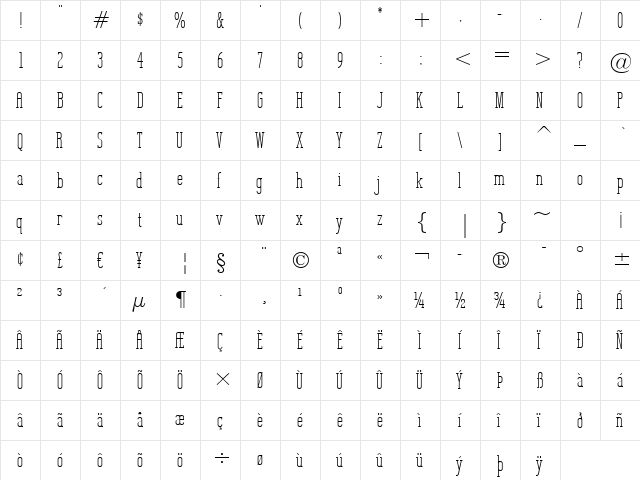
Unknown Caller BTN Regular
Design Context for Unknown Caller BTN Typeface
Unknown Caller BTN is a composed and adaptable typeface that performs quietly and consistently across a wide range of design contexts.
Pro Tip: Use Unknown Caller BTN in both headline and body roles to test its range before committing to a single application.